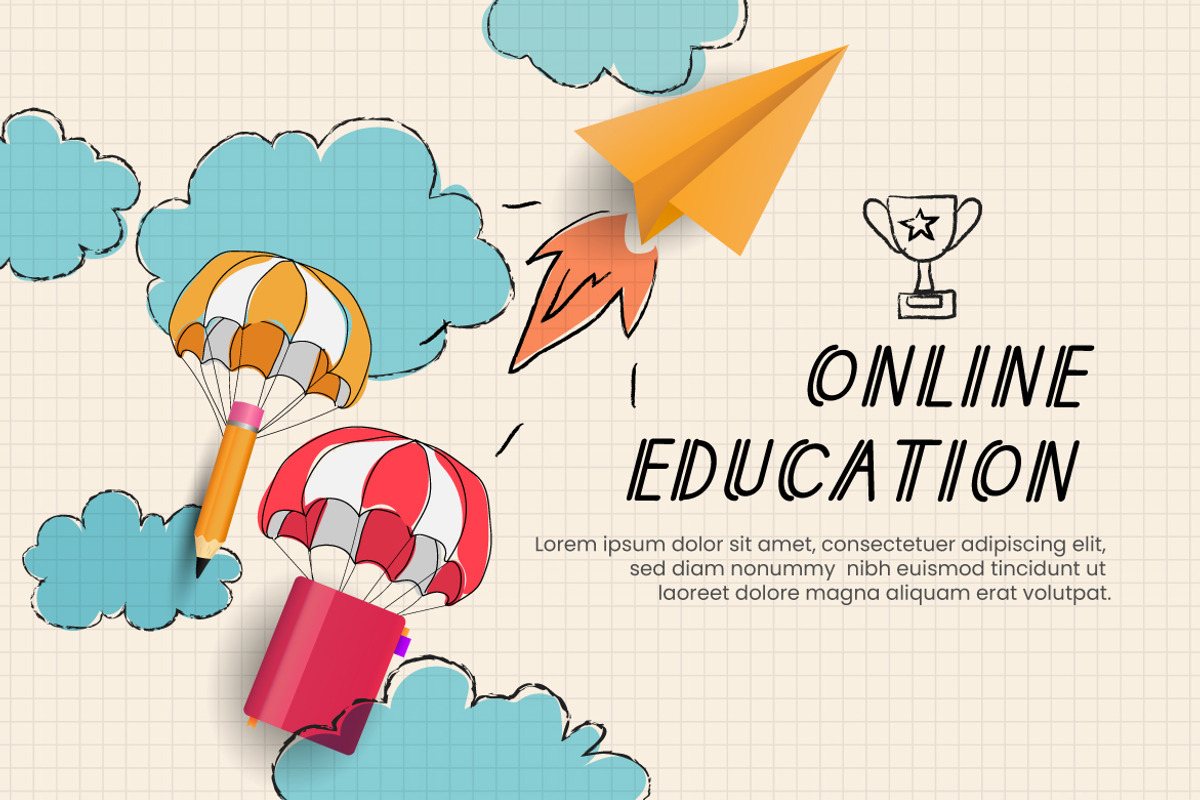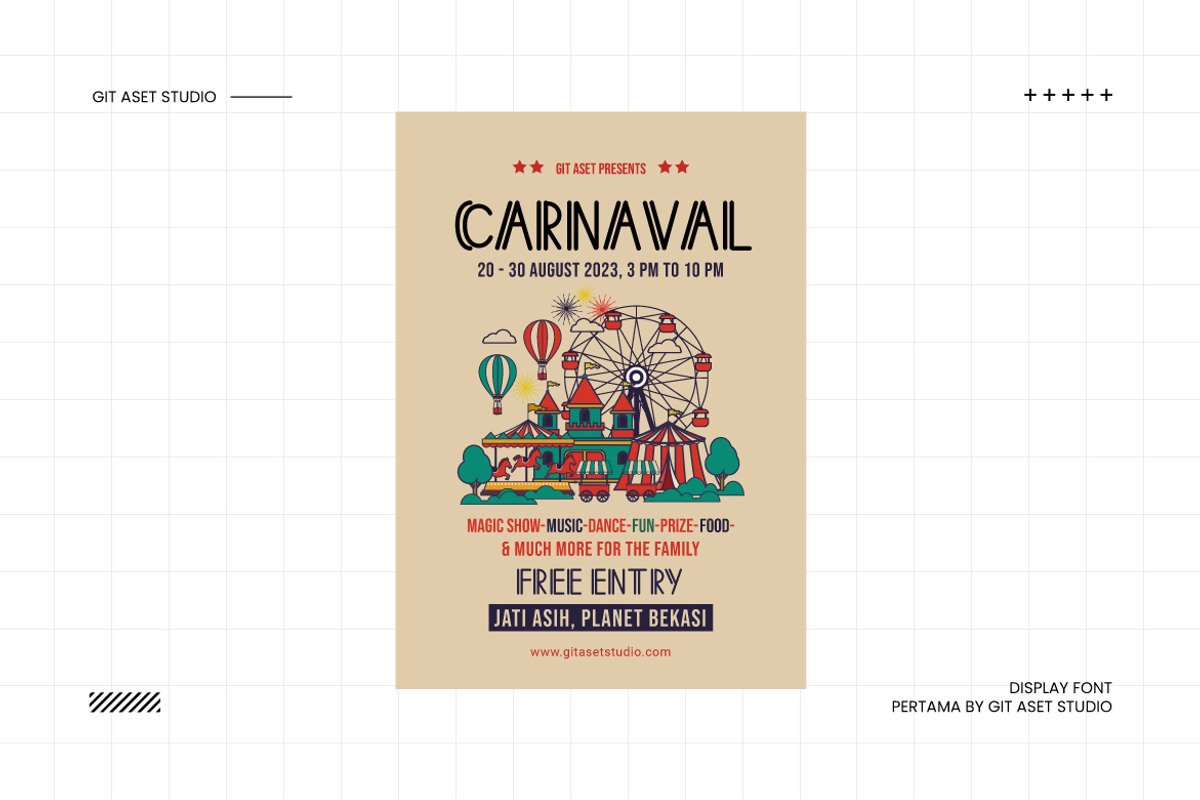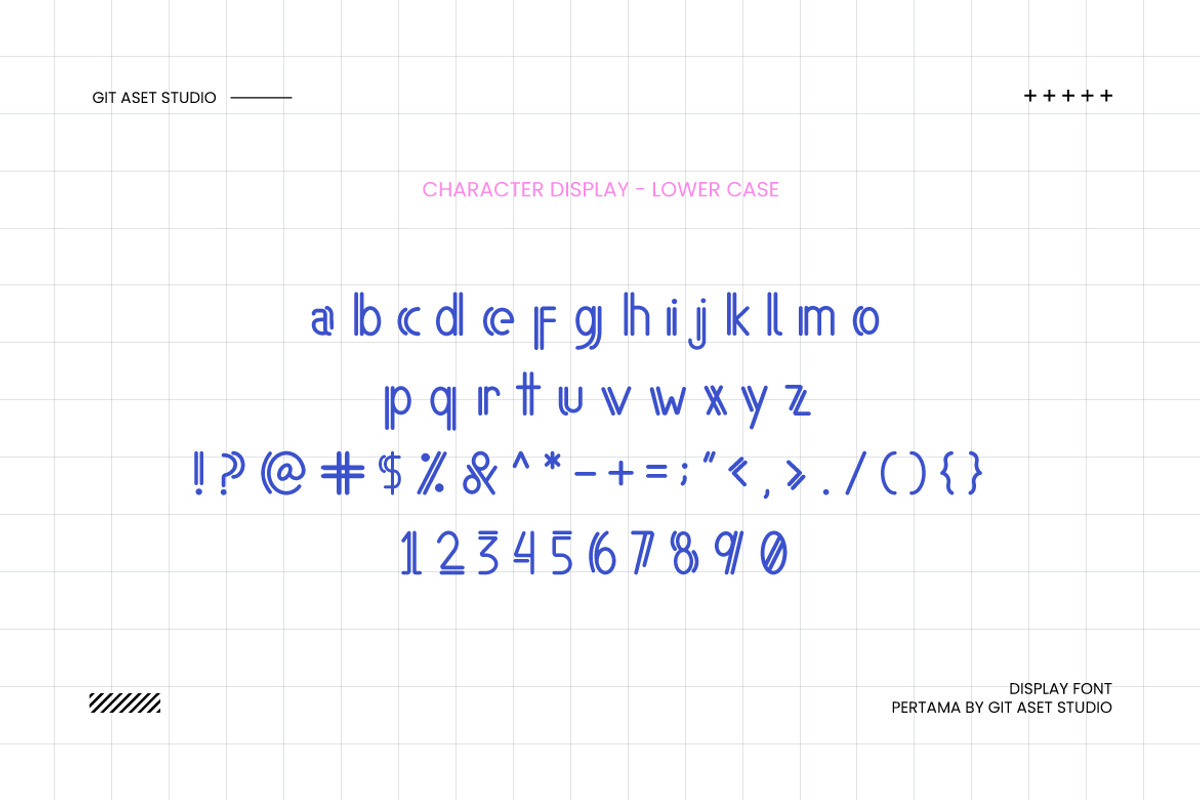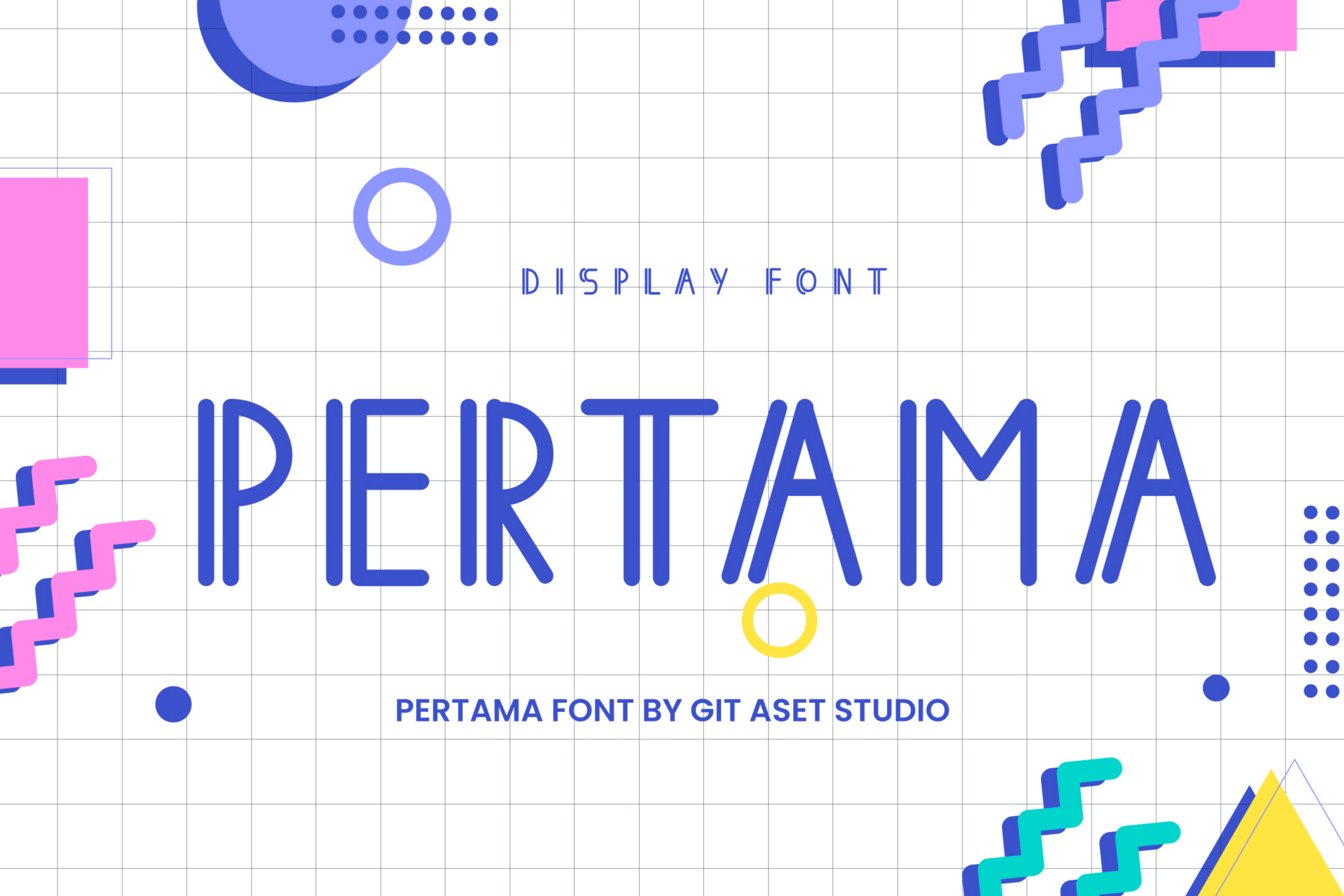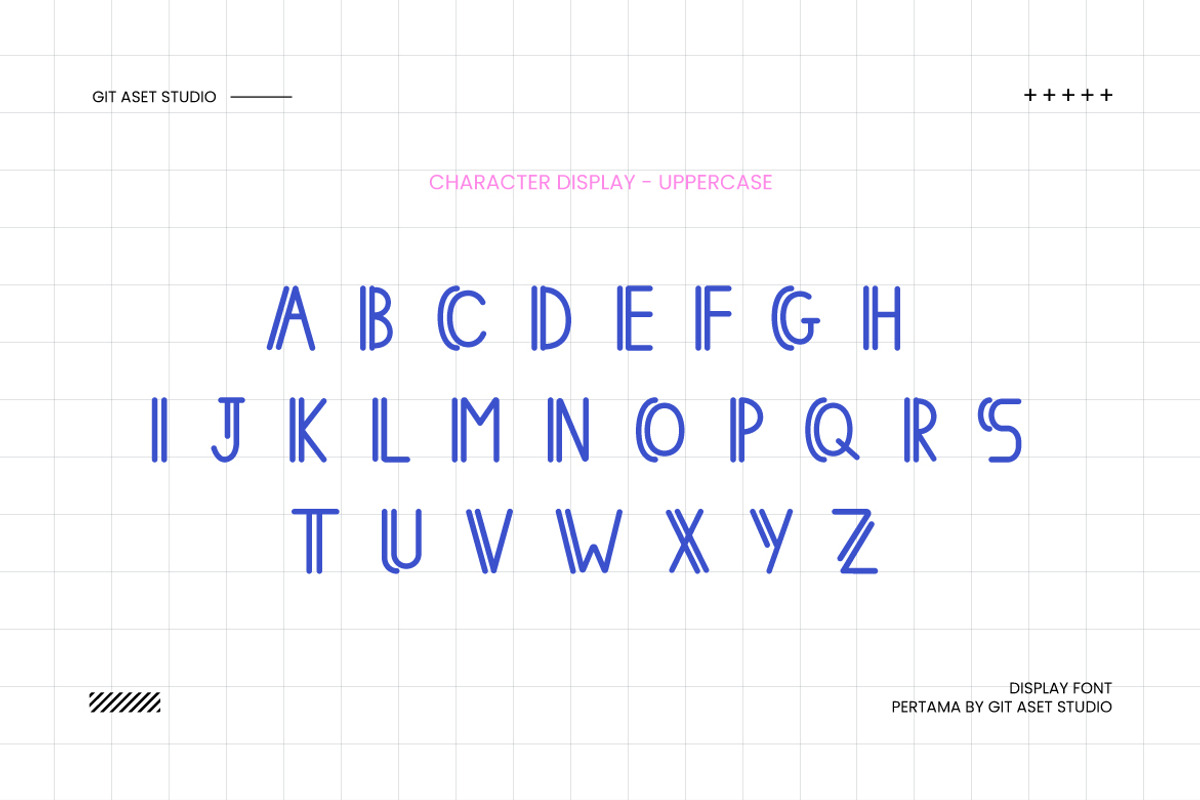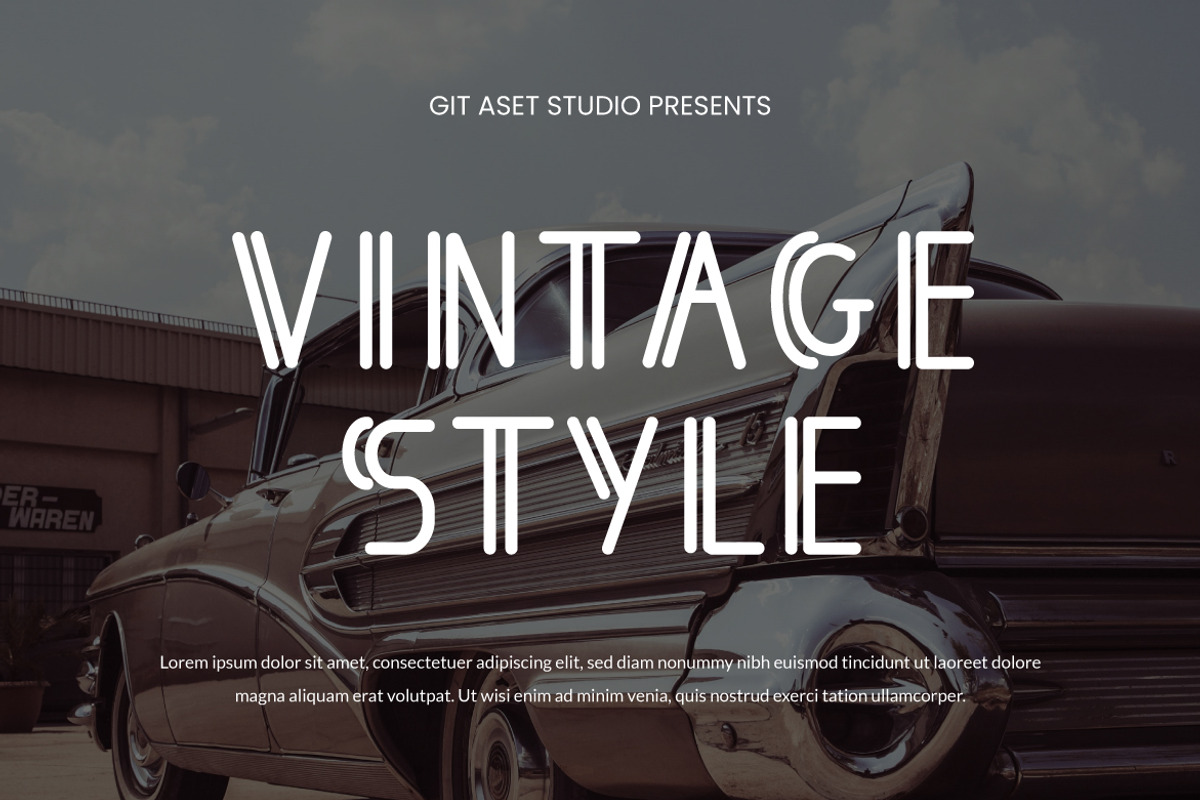
Pertama Display Font
Introducing an exquisite display font - the perfect addition to your design. Its versatility allows for seamless integration into typography-driven designs, such as branding materials, packaging, posters, and invitations. The distinct appearance of this font will make your creations stand out from the crowd, leaving a lasting impact on your audience.